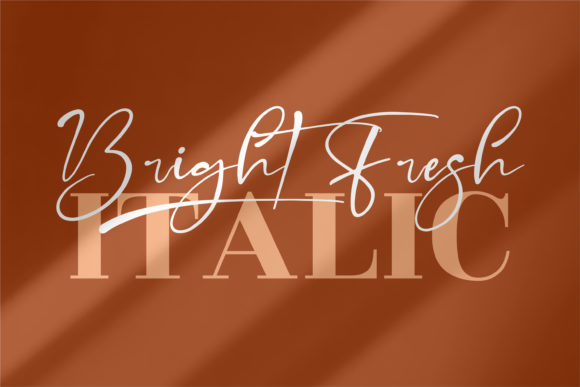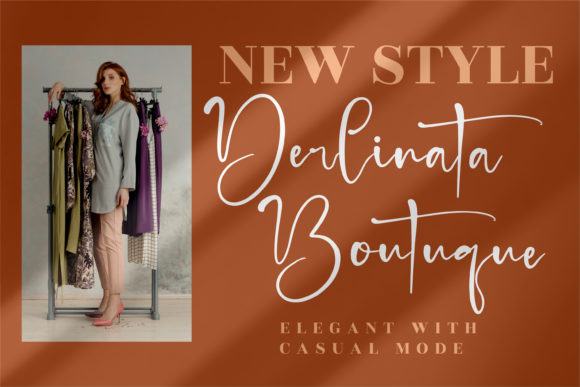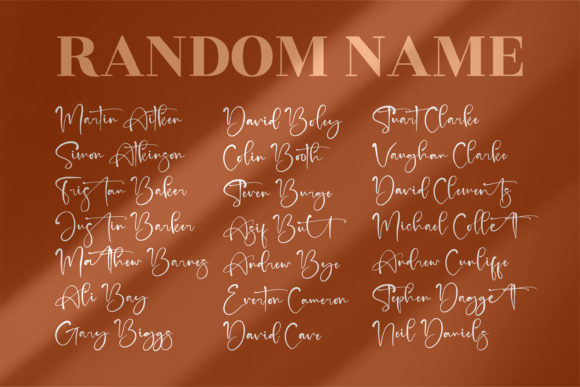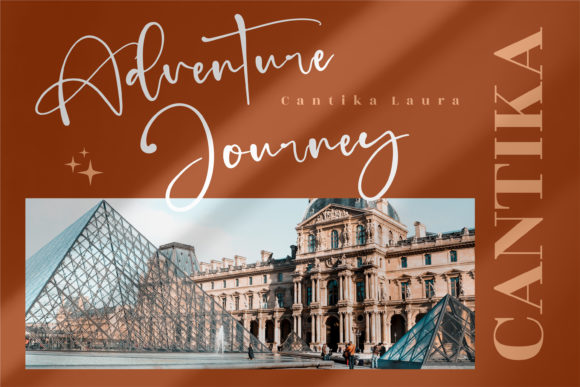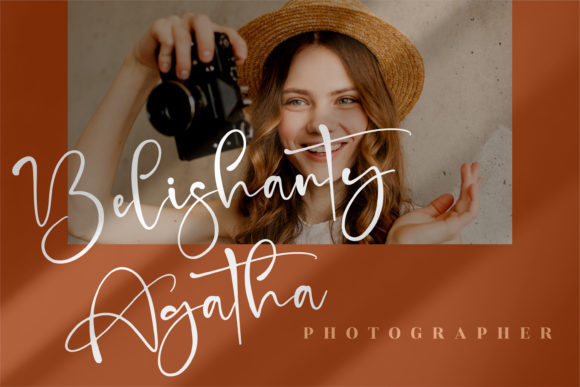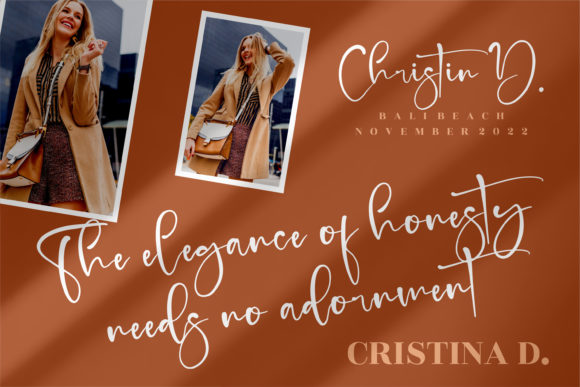
I still remember the frustration of working on a project, hours spent crafting the perfect design, only to be held back by one thing: the font. It was a client request for a elegant, yet modern logo, and I was stuck. I scoured the internet, tried font after font, but nothing seemed quite right. That was until I stumbled upon Bright Fresh Font. ✨
First Impressions: A Love Affair with Bright Fresh
As soon as I laid eyes on Bright Fresh Font, I knew I had found something special. This thin lettered and graceful script font had a certain je ne sais quoi that immediately captured my attention. Its ravishing style and elegant lines made it perfect for a wide range of design projects, from logos and branding to invitations and crafts.
What I Love About Bright Fresh Font
- ✨ PUA encoded for easy access to amazing glyphs and ligatures
- ✅ Thin lettered and graceful script for a elegant look
- 🌈 Versatile and suitable for various design projects
While Bright Fresh Font is an amazing font, there are a few things to keep in mind: 🤔
- ⚠️ Limited use on bold or heavy designs, as it may lose its elegance
- ⚠️ May not be suitable for body text, due to its script nature
The Designer Behind Bright Fresh Font
While the true story behind Bright Fresh Font remains a mystery, it’s easy to imagine a designer pouring their heart and soul into creating such a beautiful font. Perhaps they were inspired by the elegance of handwritten scripts, or the modernity of digital design. Whatever the story, Bright Fresh Font is a testament to the power of typography to evoke emotions and elevate designs.
A: PUA (Private Use Area) encoding allows designers to access a wide range of glyphs and ligatures, making it easier to create unique and creative designs.
Q: Is Bright Fresh Font suitable for body text?
A: While Bright Fresh Font is beautiful, it’s not ideal for body text due to its script nature. It’s best used for headings, titles, or creative projects.